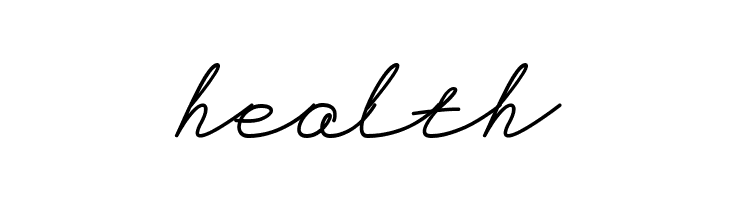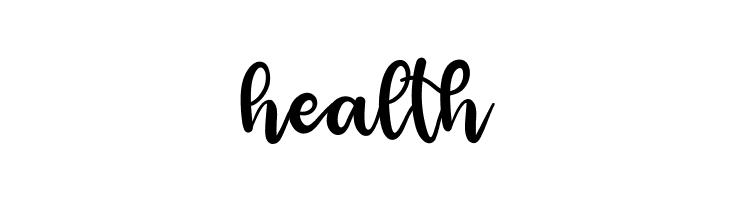
• Aleda Demo Monoline
A delicate monoline script font with elegant, flowing strokes and decorative uppercase letters.
• Aleda Demo Monoline Bold
A playful, bold monoline font with a cursive, handwritten style.
• Aleda Monoline
A playful monoline font with a hand-drawn, whimsical style.
• Aleda Monoline Bold
A playful, bold monoline font with a cursive, handwritten style.
• Aleena Groovy FREE
( Fonts by Vunira Design )
A bold, retro-inspired font with playful, decorative elements.
• aleera
A bold, expressive handwritten font with fluid strokes and playful curves.
• Alef Regular
A clean, modern sans-serif typeface with balanced spacing and consistent stroke width.
• Alefbaa
A bold, geometric font ideal for modern headlines and logos.
• Alegant Script
An elegant, flowing cursive script with intricate loops and smooth connections.
• Alégre Sans
( Font by Jayvee D. Enaguas - grandchaos9000.deviantart.com )
A bold, modern sans-serif font with strong vertical lines and uniform strokes.